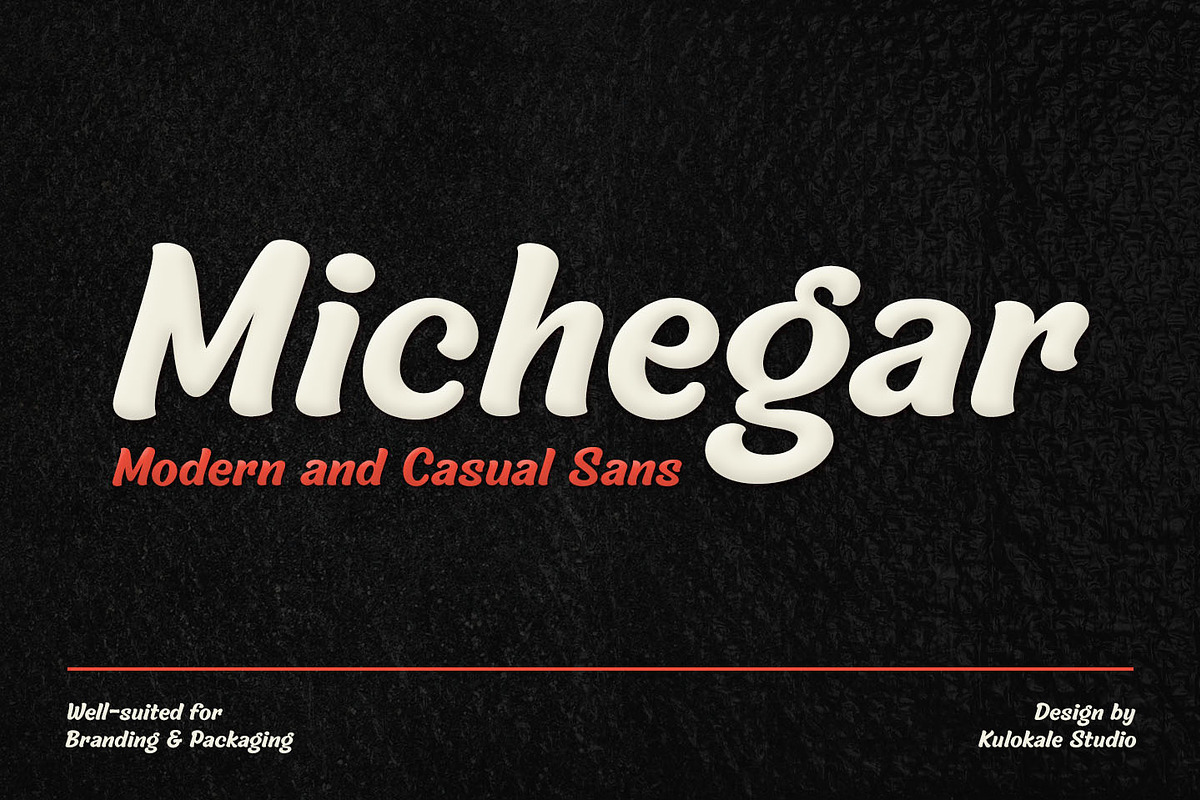
Michegar is a modern and casual sans serif font. Michegar is well-suited for advertising, branding, logotypes, packaging, titles, headlines and editorial design.
- Michegar includes Capital and Lowercase letters, Alternates, and Ligatures
- Numbers + punctuation
- Foreign language support